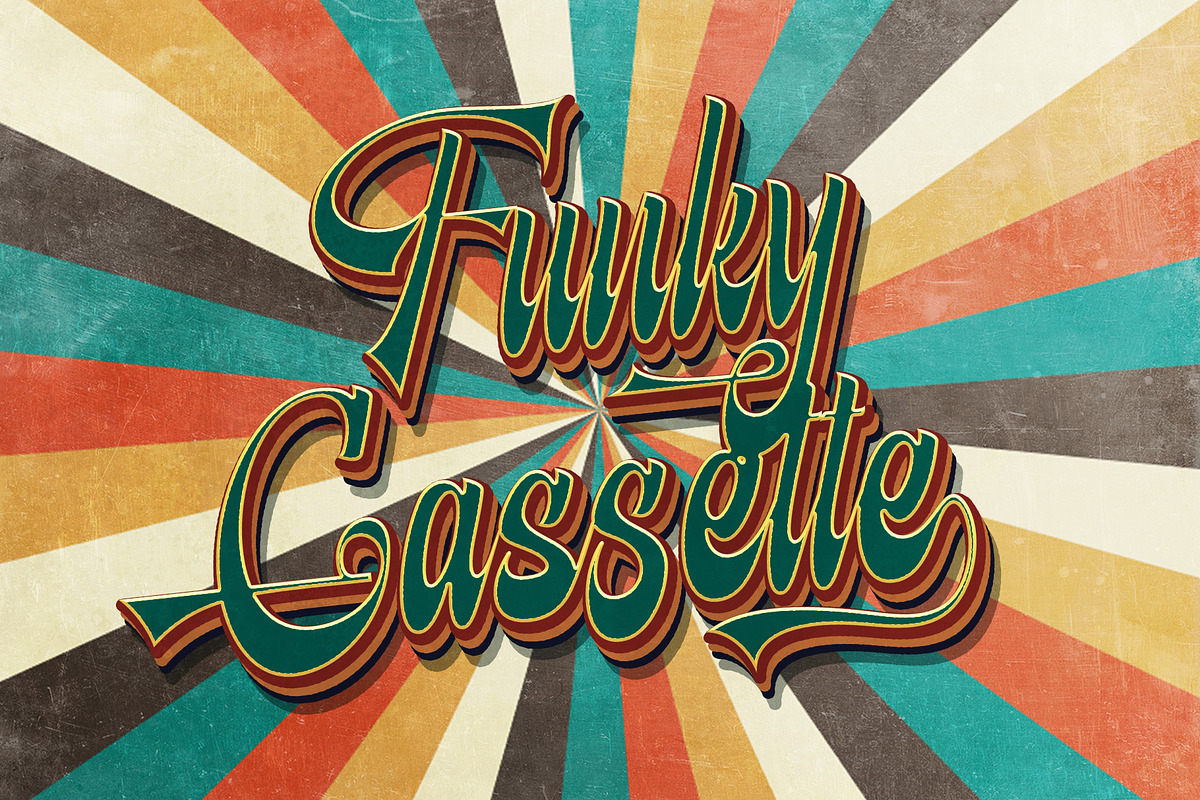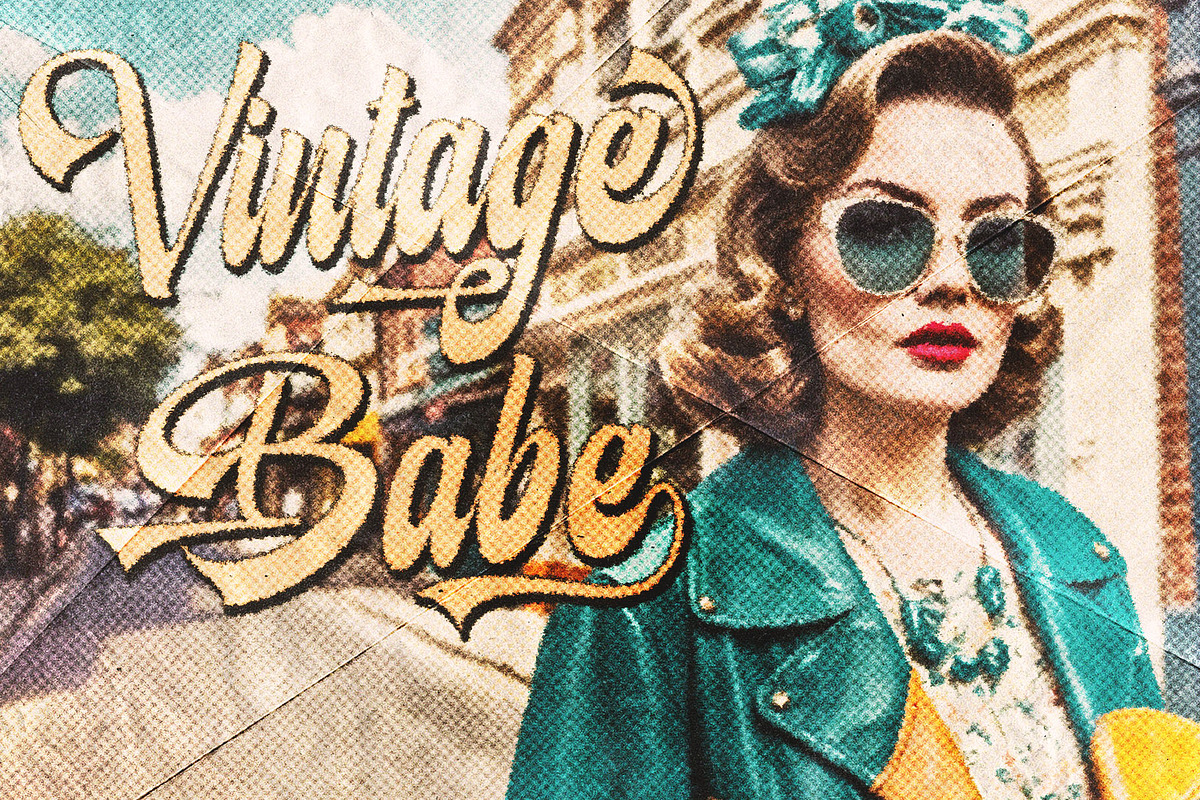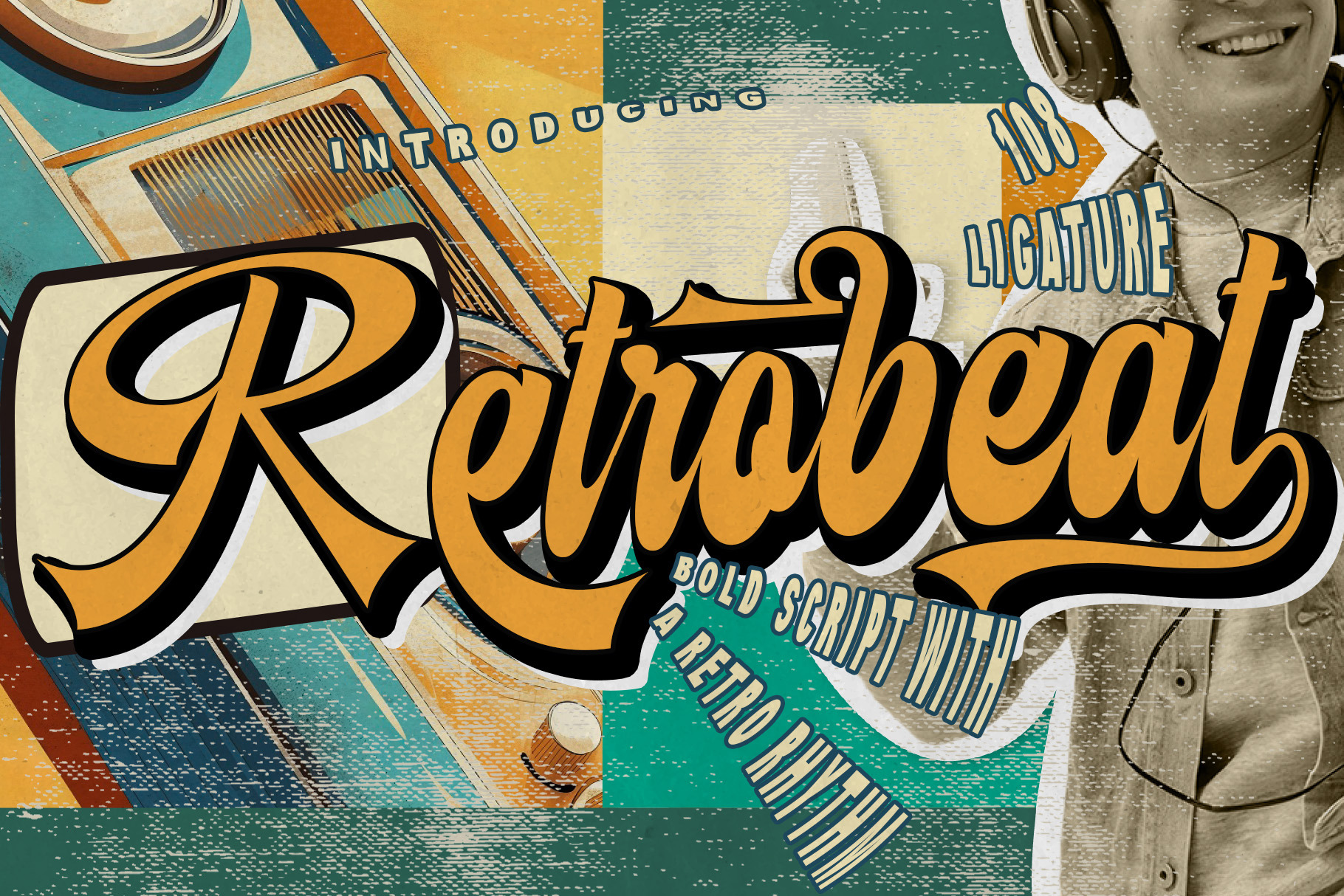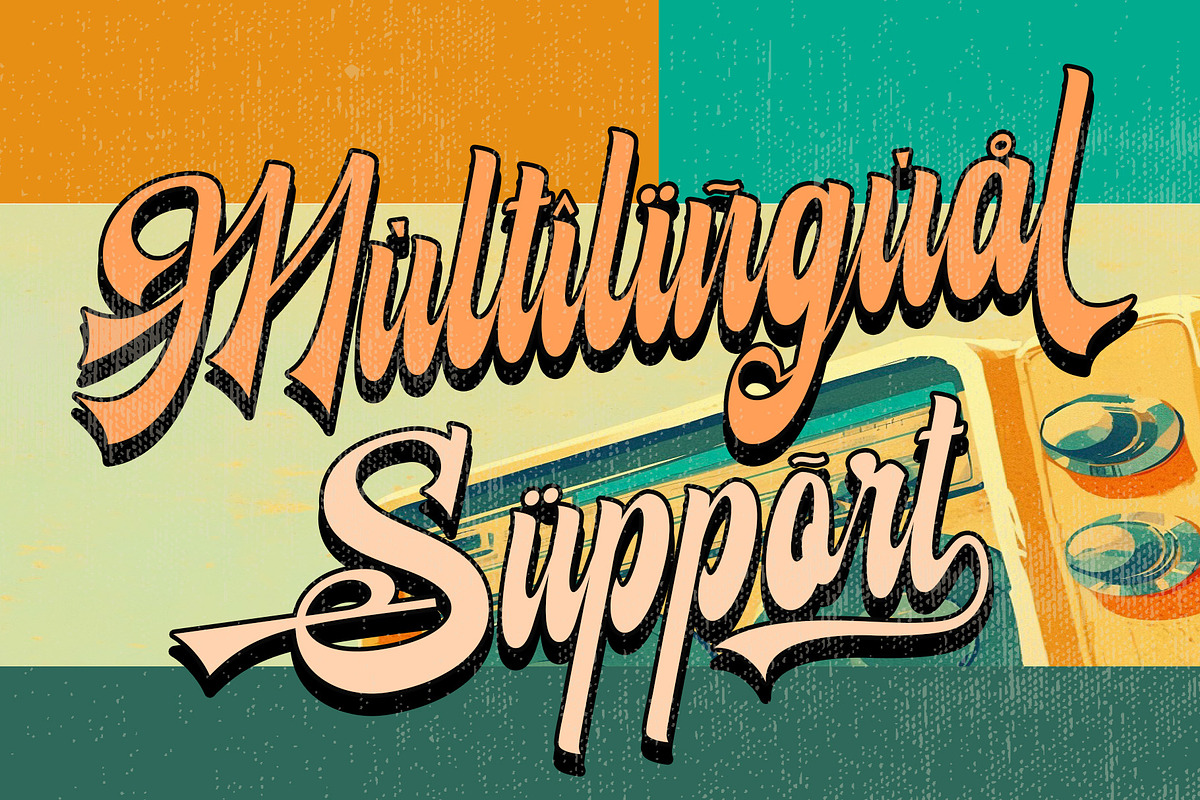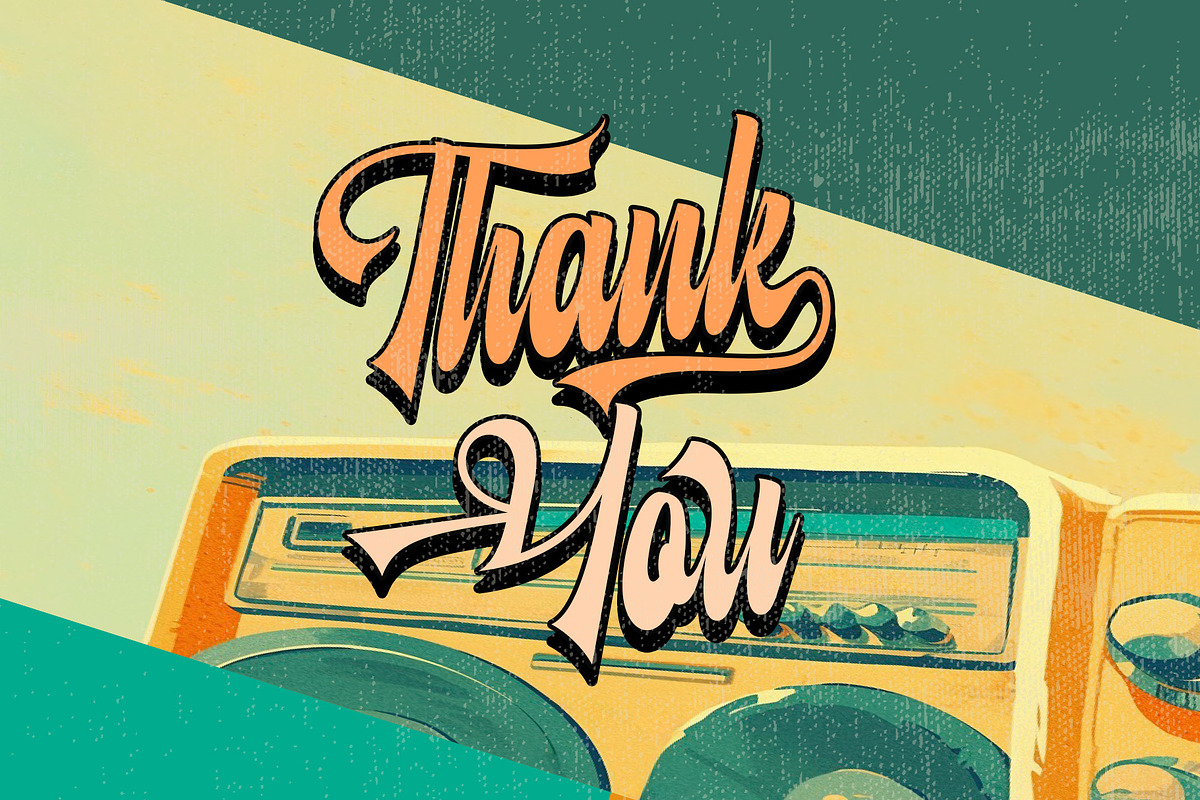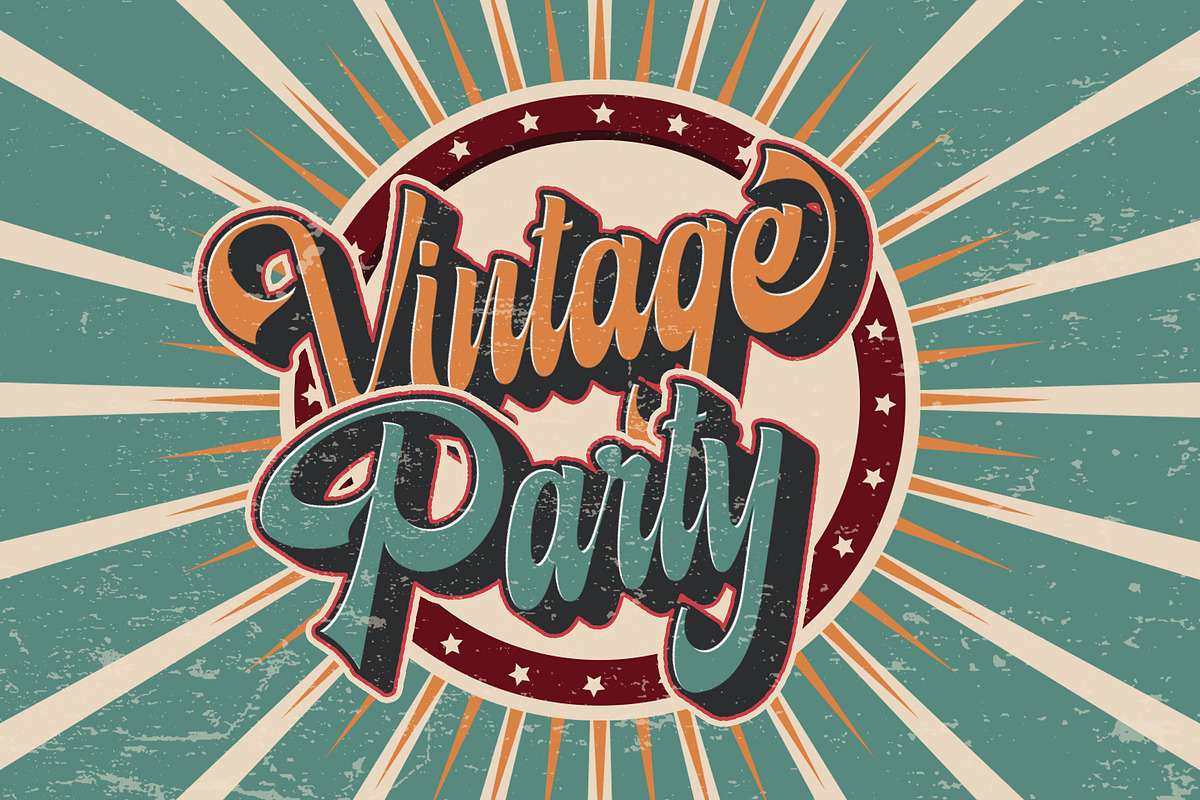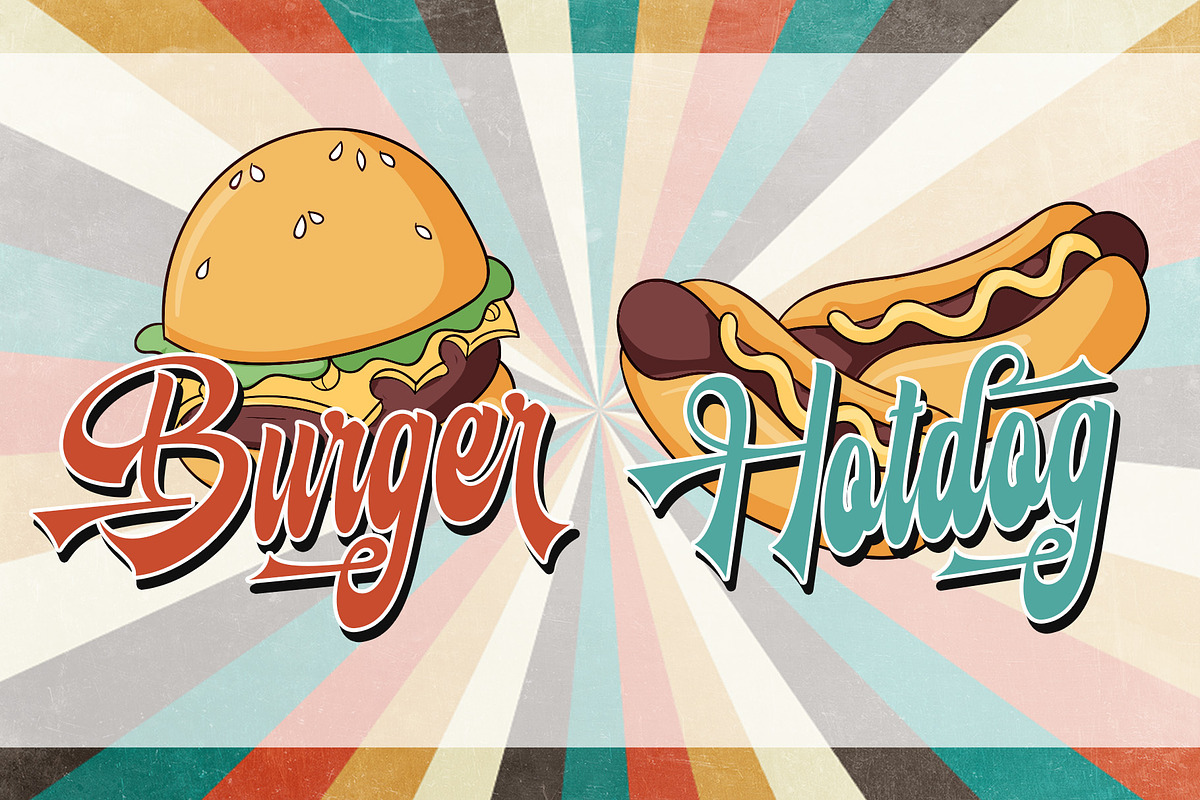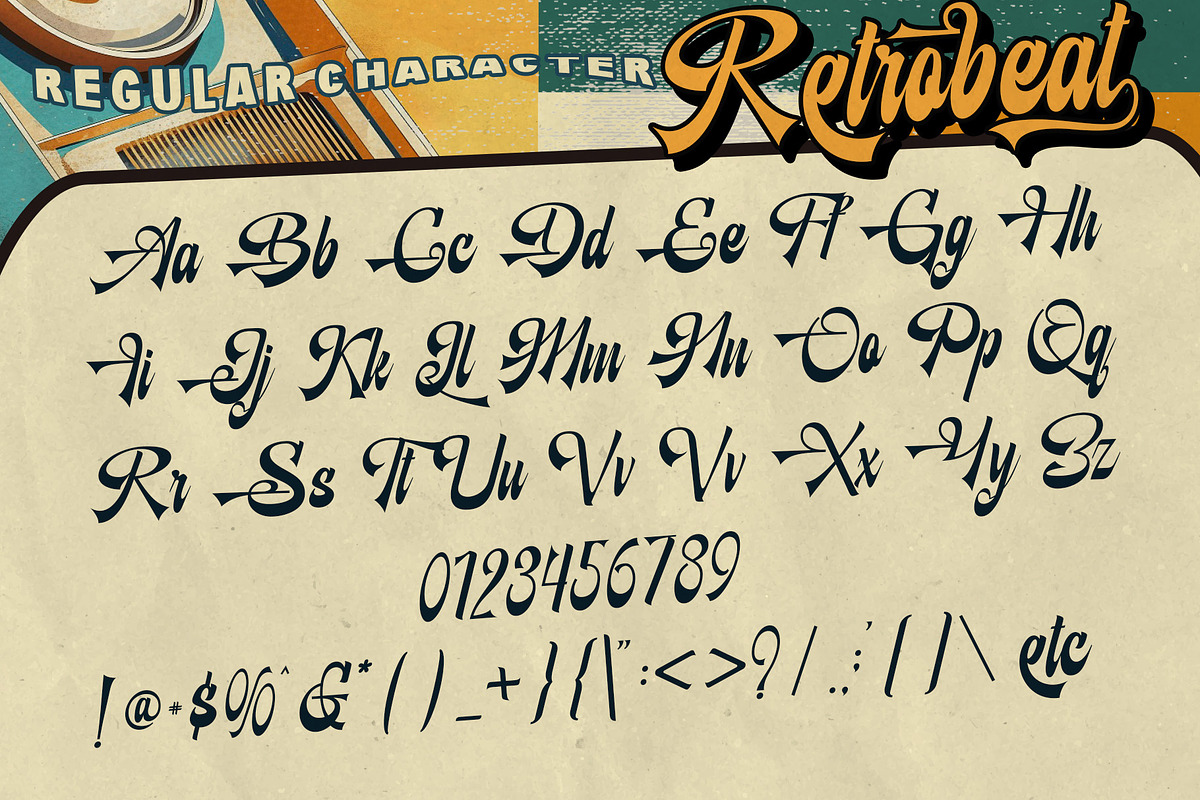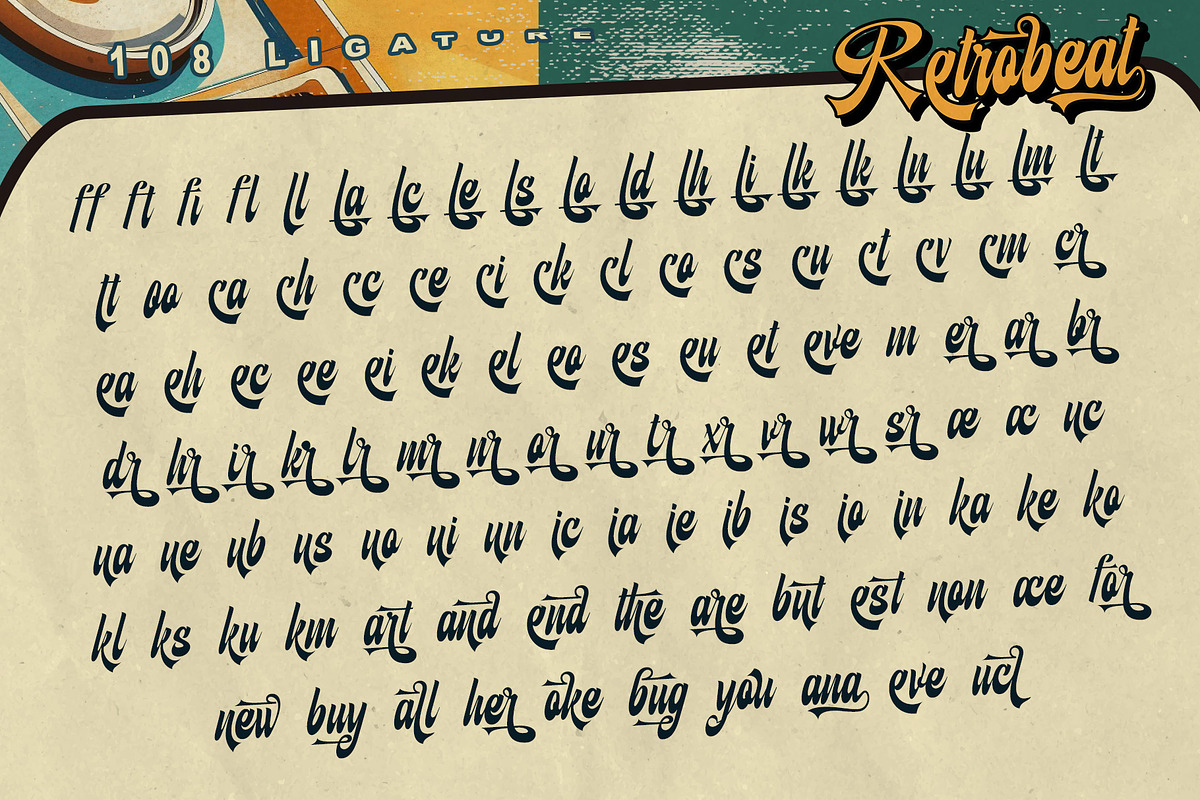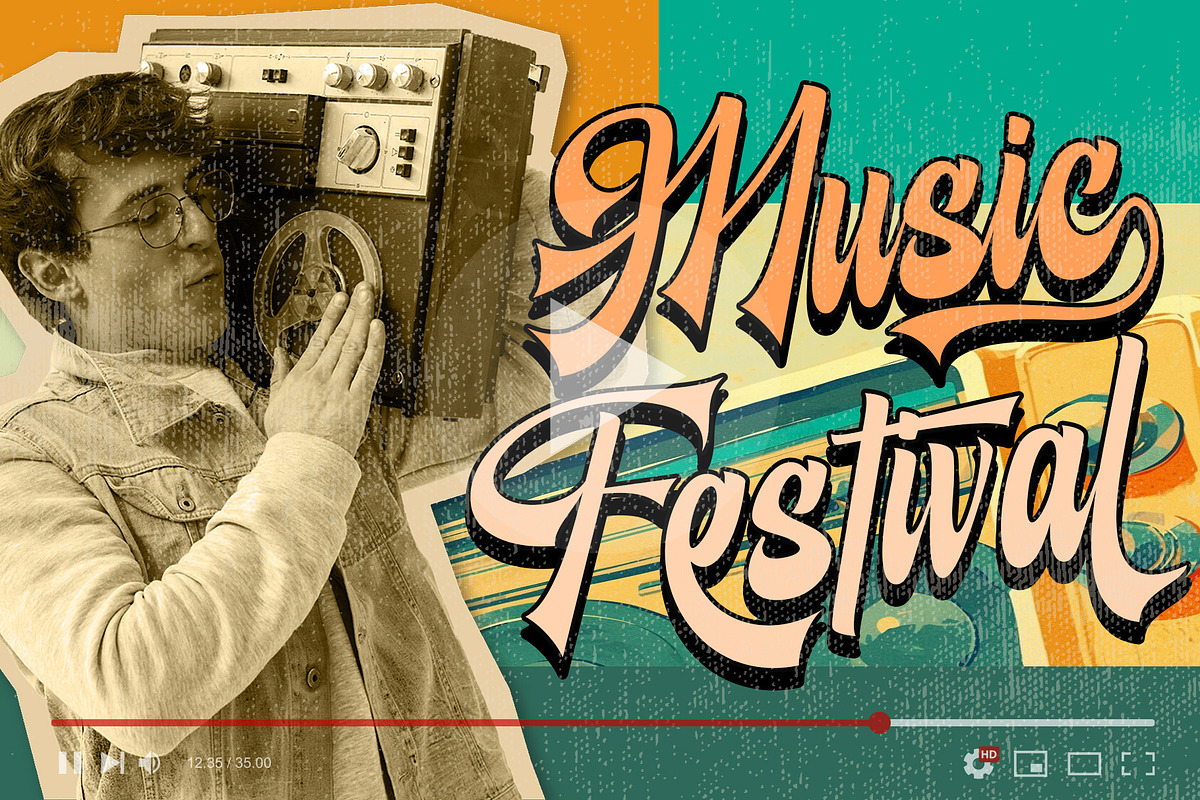
Retrobeat – Bold Retro Script Font
Introducing Retrobeat, a bold script font that brings back the vibrant rhythm of the past. With its flowing strokes, strong curves, and groovy style, this typeface captures the true essence of retro design. Perfect for posters, logos, music covers, fashion branding, and social media graphics, Retrobeat delivers a funky vibe that makes every project stand out. Let your creativity dance to the bold rhythm of Retrobeat and turn your designs into timeless classics.
- Support multilingual; ä ö ü Ä Ö Ü ß ¿ ¡
- lowercase and uppercase letters
- Alternate, swash, titling & ligature